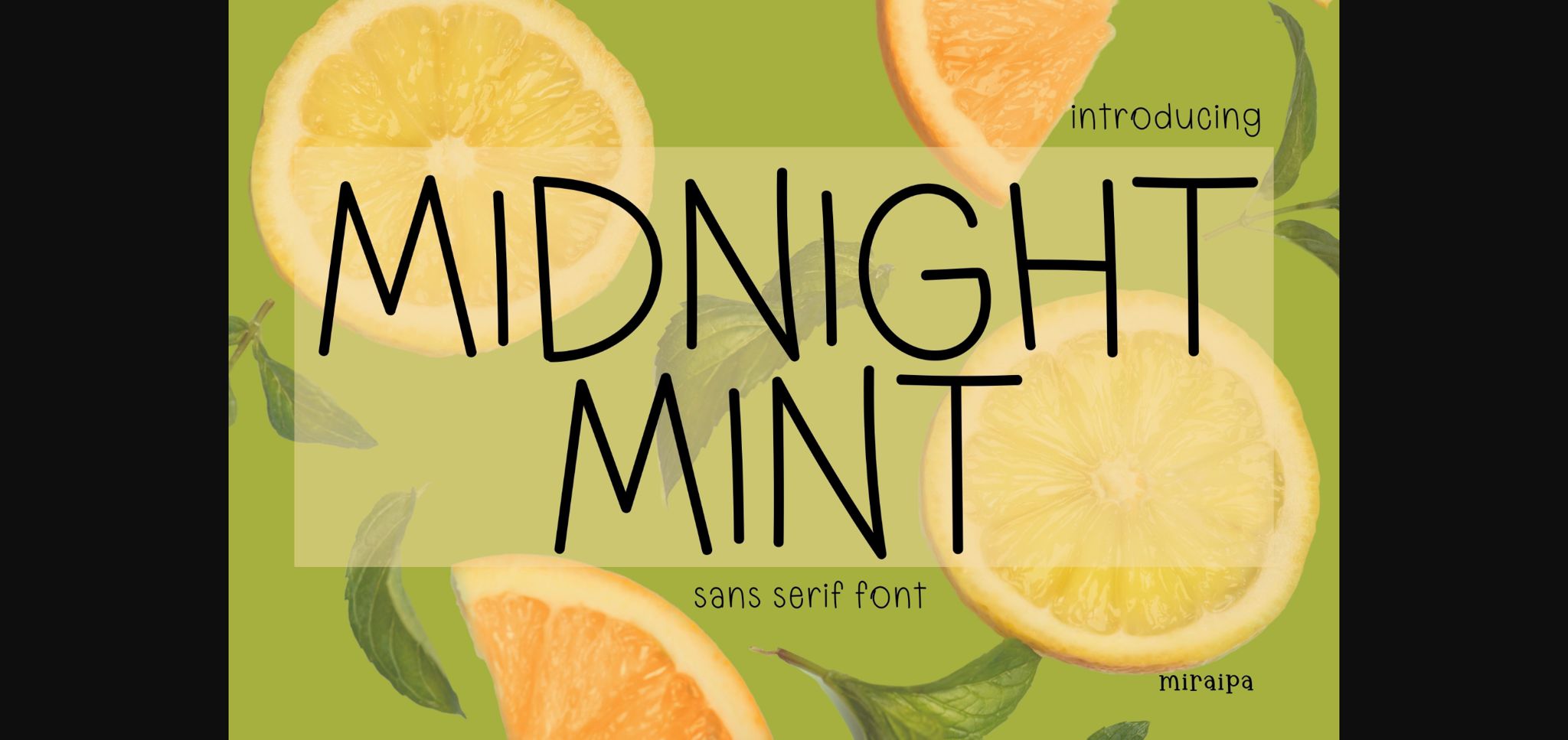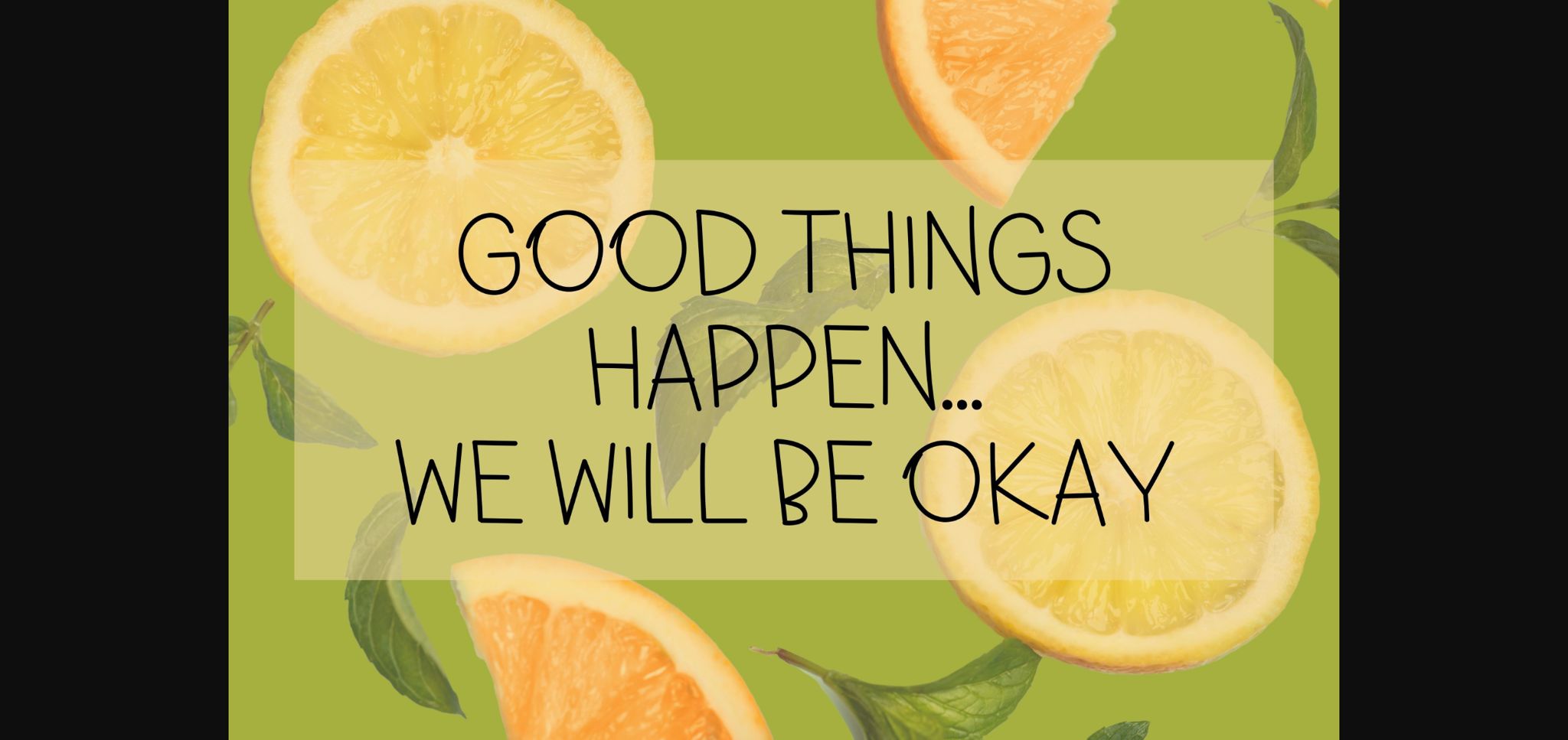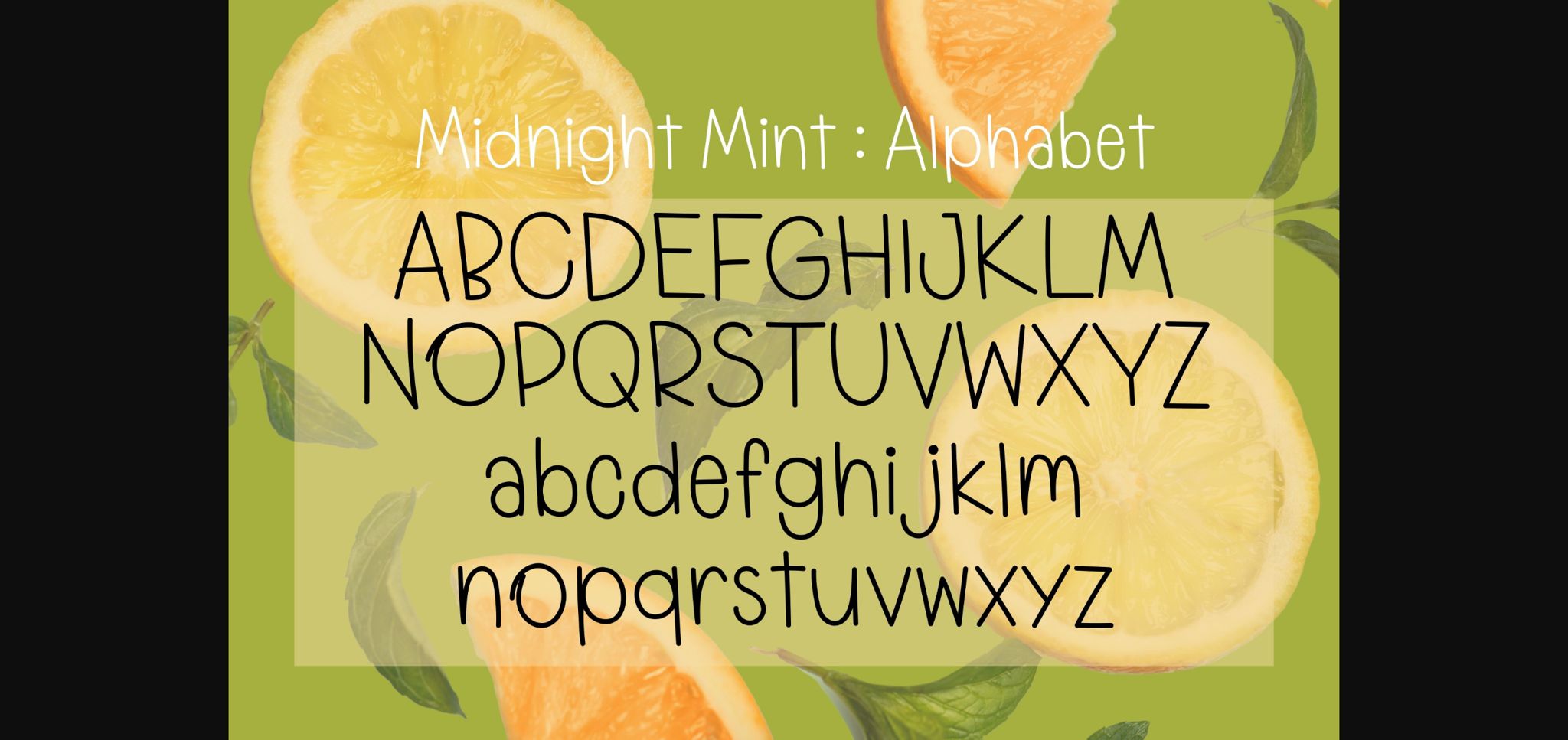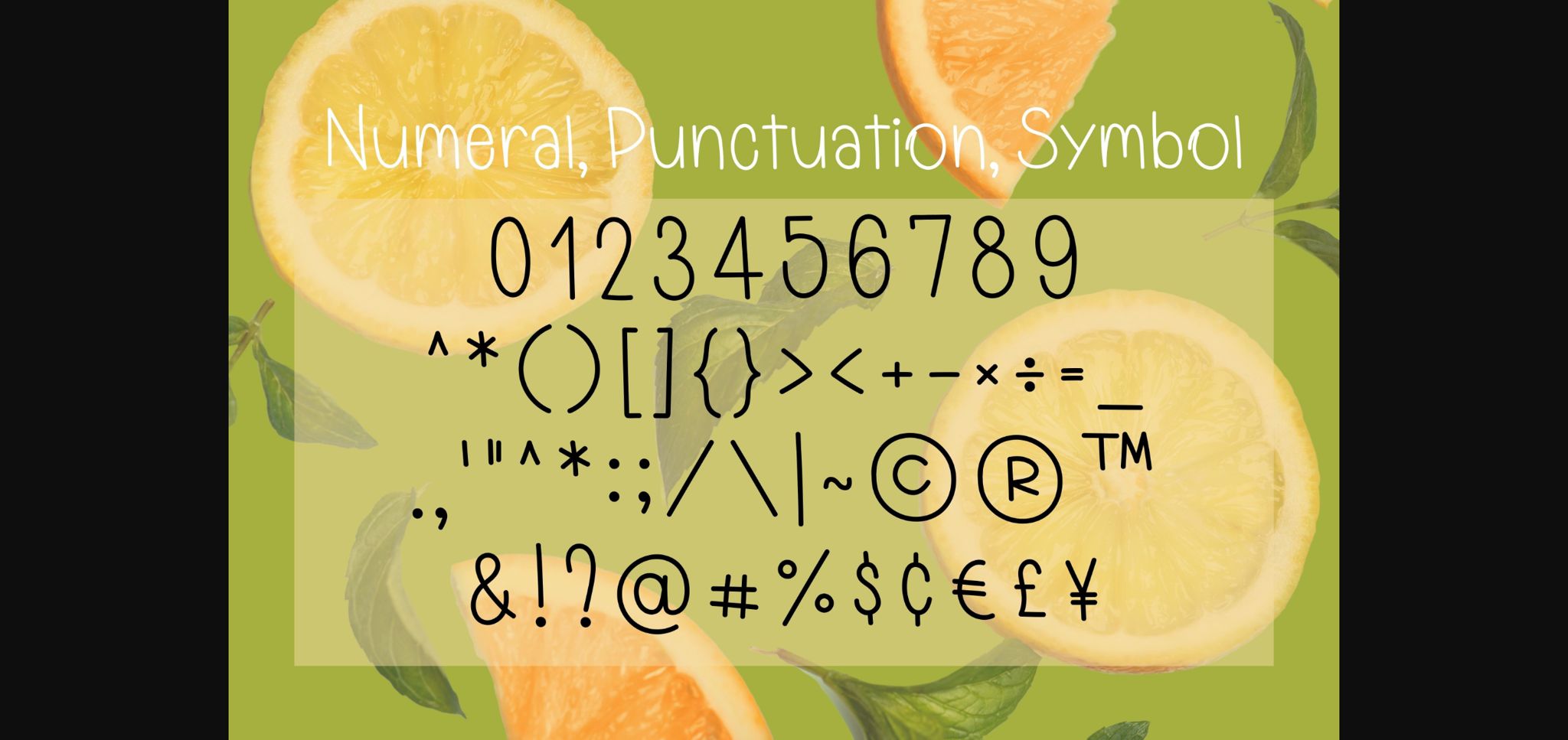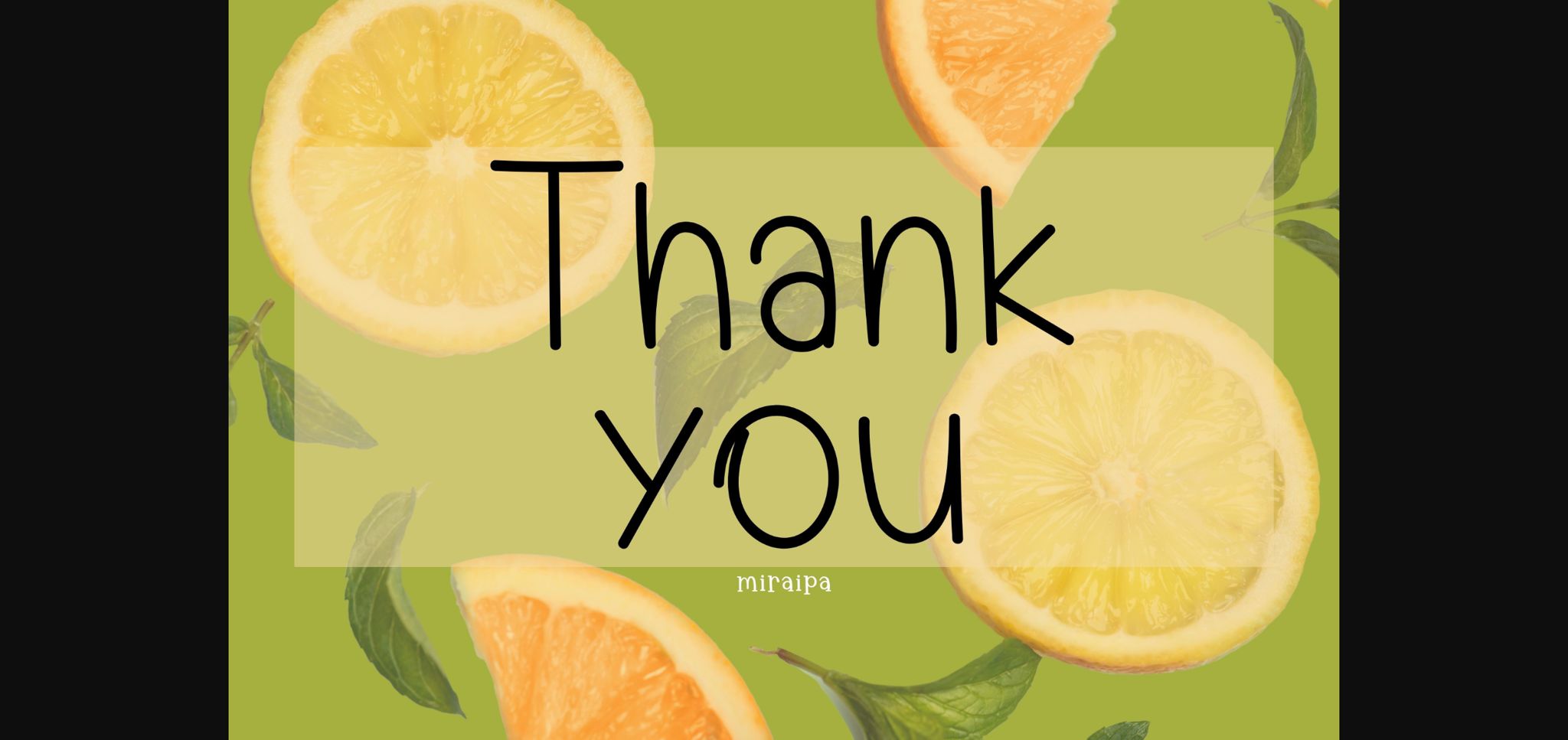
About Midnight Mint Font
Midnight Mint is a cute and friendly handwritten sans serif font. Whether you’re using it for crafts, digital design, presentations, or making greeting cards, this font has the potential to become your favorite go-to font, no matter the occasion!